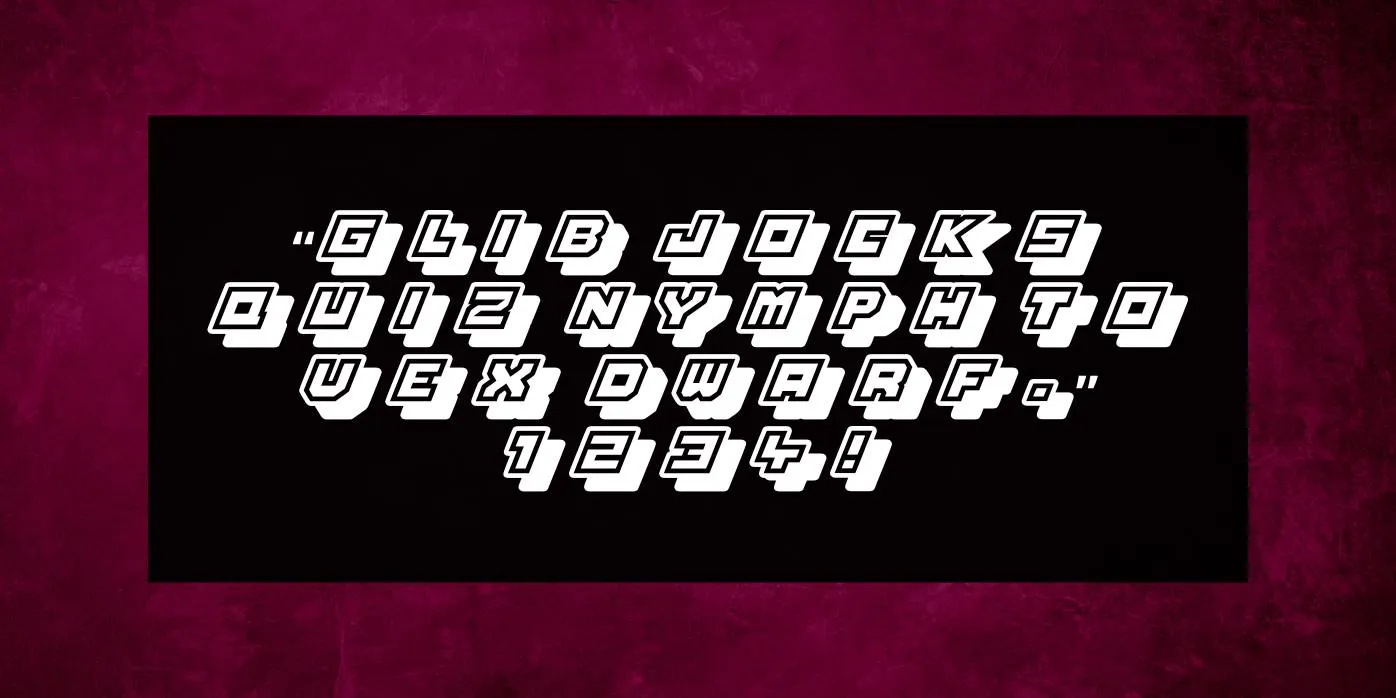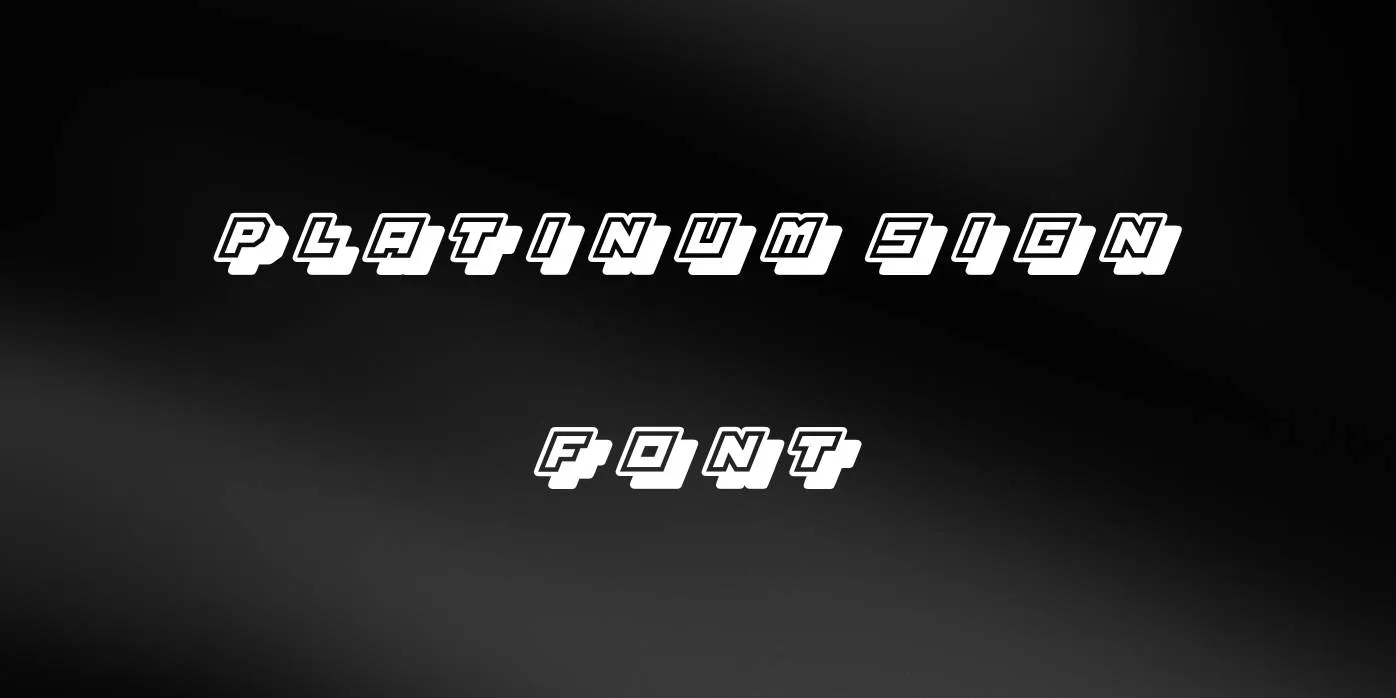
Platinum Sign Font
Platinum Sign Font is designed by the Imagex. This font belongs to a techno family. The characters of this typeface are shadowing, bold, and attractive. This font is free for personal use, that you can easily download from this website without any hesitations.